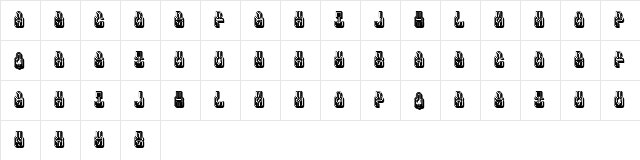
Phenomenal Regular
Design Context for Phenomenal Typeface
Phenomenal is a composed and adaptable typeface that performs quietly and consistently across a wide range of design contexts.